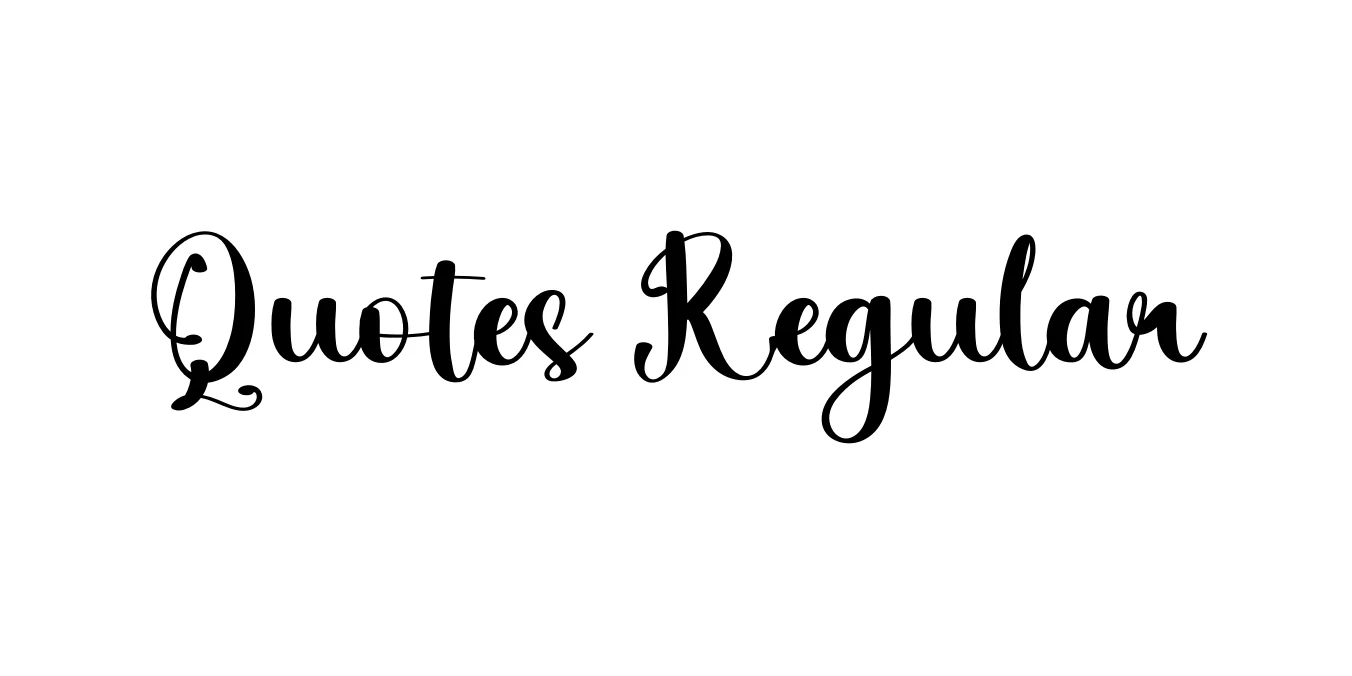
Quotes Regular
Designed by Seniors Studio
| Font Name | Quotes |
| Designer | Seniors Studio |
| Similar Fonts | Brush Script MT, Thirsty Script, Lobster |
Quotes Regular is a stunning brush script font designed by Seniors Studio. This typeface captures the essence of hand-drawn lettering with its organic flow and textured strokes, making it an ideal choice for projects that require a personal, authentic touch.
Originally released to cater to the growing demand for expressive typography, Quotes Regular has become a staple for designers working on social media graphics, greeting cards, and lifestyle branding. Its versatile nature allows it to pair beautifully with clean sans-serif fonts, providing a balanced and modern aesthetic.
Quotes Regular Best Uses
Creating eye-catching Instagram posts and story graphics.
Designing logos for boutiques, cafes, and lifestyle brands.
Adding a personal touch to wedding invitations and stationery.
Perfect for t-shirt designs and merchandise with a handmade feel.